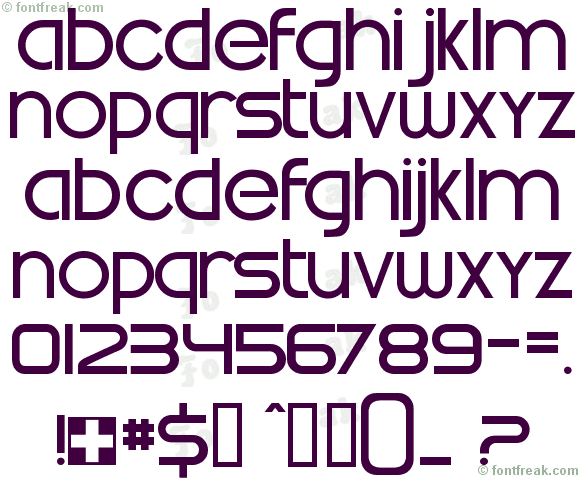
Swatch it
About Swatch It
Swatch It is a captivating display font designed by Samuel Park in 2000, embodying a unique blend of modern flair and artistic expression. As a decorative typeface, it features playful and dynamic letterforms that are ideal for grabbing attention. The font showcases a medium stroke weight with subtle variations that create a sense of movement and whimsy. Its well-balanced spacing enhances readability, while the rounded edges and fluid curves add an inviting charm, making it perfect for various creative projects.
This font is particularly well-suited for applications where a touch of personality is crucial. Graphic designers can utilize the Swatch It font for vibrant wedding invitations, adding warmth and friendliness to the occasion. Its distinctive style also makes it an excellent choice for eye-catching movie posters that aim to convey excitement and intrigue. Restaurant menus can benefit from this font's artistic touch, drawing in patrons with its visual appeal. Additionally, content creators looking to enhance their branding can integrate Swatch It into their social media graphics, giving their online presence a fresh and engaging look.
The target audience for Swatch It includes graphic designers, small business owners, and content creators who seek to elevate their projects with a unique typographic choice. This font not only serves to communicate but also to evoke emotion, making it a valuable asset in any creative toolkit.